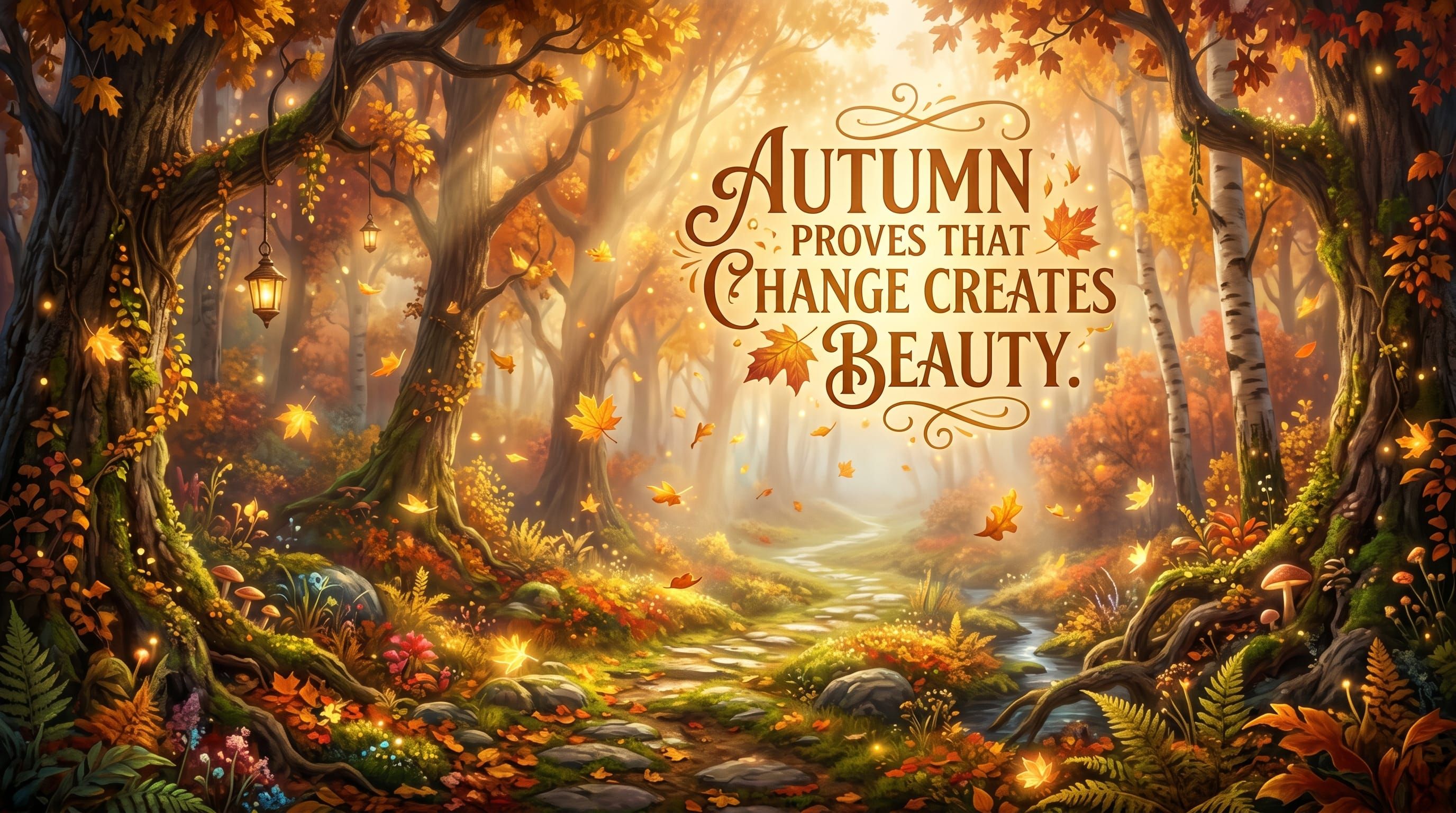
Best Autumn Quotes for Beautiful Fall Moments
Autumn is a season filled with transformation, warmth, and natural beauty. Golden leaves, crisp air, cozy sweaters, pumpkin spice drinks, and peaceful walks create memories that many people love to capture and share. This is why autumn quotes remain popular every year. They help express appreciation for the season while adding meaning to photos, journals, social media posts, and creative projects.
The best autumn quotes capture the beauty of changing leaves, the comfort of cooler weather, and the excitement of new beginnings. Whether you are creating Instagram content, designing seasonal graphics, building a fall-themed blog, or simply enjoying the season, the right words can enhance the experience.
In this guide, you will discover inspiring autumn quotes, fall captions, creative ideas, design tools, and DM Letter Studio font pairings that help celebrate beautiful fall moments.
Why Autumn Quotes Are So Popular
People often associate autumn with reflection and gratitude.
Meaningful autumn quotes help:
• Celebrate seasonal beauty
• Create emotional connections
• Enhance social media posts
• Inspire creativity
• Capture memorable moments
• Improve seasonal storytelling
The combination of visual beauty and meaningful words makes autumn content highly engaging.
Best Autumn Quotes for Beautiful Fall Moments
Here are some inspiring autumn quotes perfect for seasonal content.
Inspirational Quotes
• Autumn teaches us that change can be beautiful.
• Every falling leaf tells a story of growth.
• New seasons bring new opportunities.
• The beauty of autumn lies in its transformation.
• Fall reminds us to embrace change gracefully.
These quotes work well for personal reflection and lifestyle content.
Cozy Fall Quotes
• Sweater weather is always a good idea.
• Autumn afternoons are made for warm drinks and good books.
• Happiness is a cozy autumn day.
• Fall is nature’s invitation to slow down.
• Cozy moments become lasting memories.
Cozy quotes often perform well on Instagram and Pinterest.
Autumn Quotes About Nature and Changing Seasons
Nature remains one of autumn’s greatest inspirations.
Seasonal Nature Quotes
• Leaves fall, but beauty remains.
• Autumn paints the world in warm colors.
• Every leaf becomes a flower in autumn.
• The forest glows differently in the fall.
• Autumn is nature’s masterpiece.
Nature-inspired autumn quotes pair perfectly with landscape photography.
Autumn Reflection Quotes
• Autumn reminds us that endings can be beautiful.
• Let go like the leaves.
• Change is part of every season.
• The best journeys often begin with change.
• Growth starts when we embrace new seasons.
These messages often resonate with personal growth themes.
Autumn Quotes for Instagram Captions
Social media users frequently search for seasonal captions.
Short Autumn Captions
• Hello autumn.
• Falling for fall.
• Golden days ahead.
• Autumn vibes only.
• Leaves and dreams.
Short autumn quotes work well for minimalist posts.
Aesthetic Fall Captions
• Chasing golden leaves.
• Autumn skies and cozy nights.
• Collecting fall memories.
• Wrapped in autumn magic.
• Falling into my favorite season.
These captions complement aesthetic photography.
Autumn Quotes for Gratitude and Mindfulness
Autumn often encourages reflection.
Gratitude Quotes
• Autumn reminds us to appreciate simple moments.
• Every season brings something worth celebrating.
• Gratitude grows where appreciation lives.
• Fall teaches us to cherish the present.
• Beauty exists in everyday moments.
Mindful autumn quotes often connect with broader audiences.
Autumn Quotes for Friends and Family
The season is also about togetherness.
Family-Themed Quotes
• Autumn memories are better when shared.
• Family makes every season warmer.
• Fall brings people closer together.
• Cozy moments become treasured memories.
• Autumn is best enjoyed with loved ones.
These quotes work well for family photo collections.
Autumn Quotes for New Beginnings
Autumn is often associated with fresh starts.
Motivational Fall Quotes
• New seasons bring new opportunities.
• Autumn proves that change creates beauty.
• Every ending creates a new beginning.
• Embrace the season ahead.
• Growth starts with change.
Motivational autumn quotes are popular for lifestyle blogs and social content.
Font Pairings for Autumn Quotes Graphics
Typography can significantly improve seasonal designs.
1. Honeyquill + Omarta
Honeyquill Font